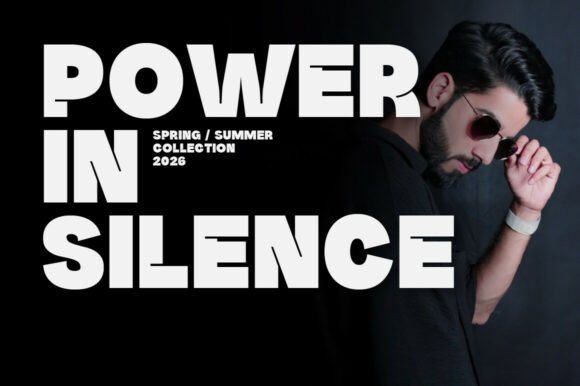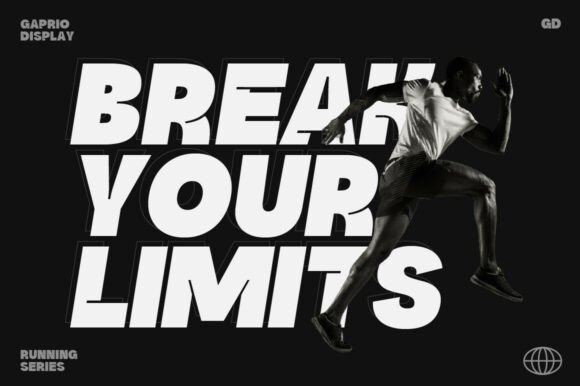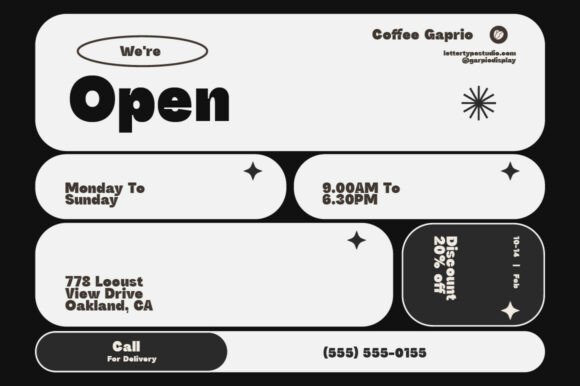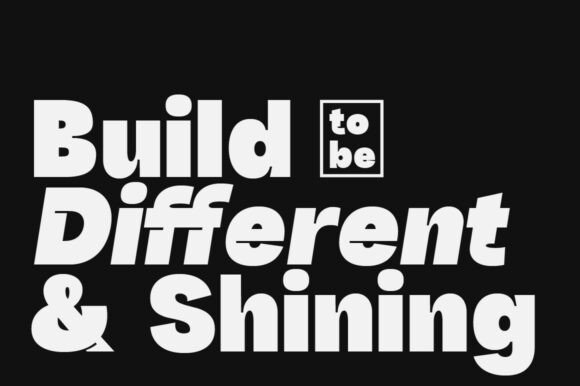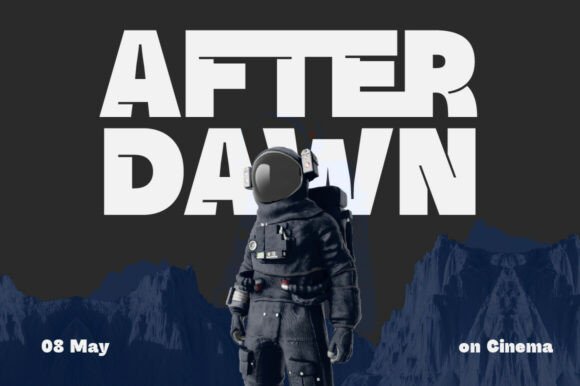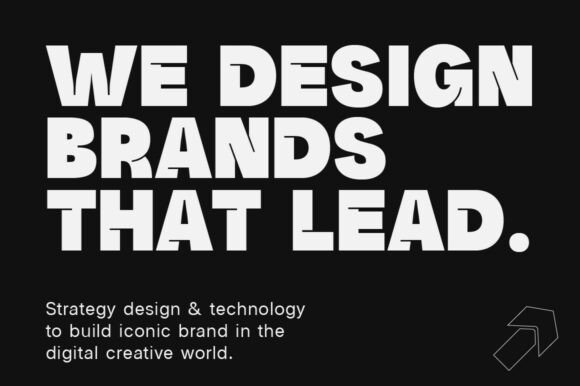
Introducing Gaprio Display: The Ultimate Geometric Display Font for Modern Design
In the world of typography, a great font can make all the difference in capturing the essence of a brand, product, or message. For designers and crafters looking for a bold, geometric display sans that embodies modern branding and editorial layouts, look no further than Gaprio Display. This stunning font is crafted to deliver a striking balance between contemporary minimalism and expressive display aesthetics, making it the perfect choice for a wide range of design projects.
Gaprio Display is designed with strong proportions, clean curves, and a confident visual rhythm that sets it apart from other fonts. Its bold presence makes every headline feel impactful, while still maintaining clarity and readability. The font’s geometric structure provides a modern and sleek look, while its energetic display personality adds a touch of playfulness and creativity.
One of the standout features of Gaprio Display is its versatility. This font works beautifully across a variety of design applications, including luxury branding, streetwear campaigns, sports visuals, music covers, digital advertisements, packaging, and social media graphics. Whether you’re looking to create a bold statement or a subtle impression, Gaprio Display is the perfect choice.
Key Benefits for Designers
So, what makes Gaprio Display an ideal choice for designers? Here are just a few key benefits:
- Attention-grabbing typography: Gaprio Display is designed to grab attention and make a lasting impression. Its bold presence and confident visual rhythm ensure that your headlines and titles will stand out from the crowd.
- Versatility: This font is incredibly versatile, making it suitable for a wide range of design projects and applications.
- Clarity and readability: Despite its bold presence, Gaprio Display maintains clarity and readability, ensuring that your message is conveyed clearly and effectively.
- Modern and sleek look: The font’s geometric structure and clean curves provide a modern and sleek look that’s perfect for contemporary design projects.
Applications for Gaprio Display
So, what types of projects is Gaprio Display best suited for? Here are just a few examples:
- Luxury branding: Gaprio Display’s bold presence and modern look make it an ideal choice for luxury branding and high-end design projects.
- Streetwear campaigns: The font’s energetic display personality and confident visual rhythm make it perfect for streetwear campaigns and youth-oriented design projects.
- Sports visuals: Gaprio Display’s bold presence and geometric structure make it an excellent choice for sports visuals and athletic branding.
- Music covers: The font’s modern look and energetic personality make it ideal for music covers and album art.
- Digital advertisements: Gaprio Display’s attention-grabbing typography and versatility make it perfect for digital advertisements and online marketing campaigns.
In conclusion, Gaprio Display is a stunning geometric display sans that offers a unique combination of modern minimalism and expressive display aesthetics. Its bold presence, clean curves, and confident visual rhythm make it the perfect choice for designers and crafters looking for attention-grabbing typography that still maintains clarity and readability. With its versatility and wide range of applications, Gaprio Display is an essential font for any design project that demands confidence, style, and visual impact.
Whether you’re a professional designer or a crafty DIY enthusiast, Gaprio Display is a font that’s sure to elevate your design projects and help you achieve your creative vision.